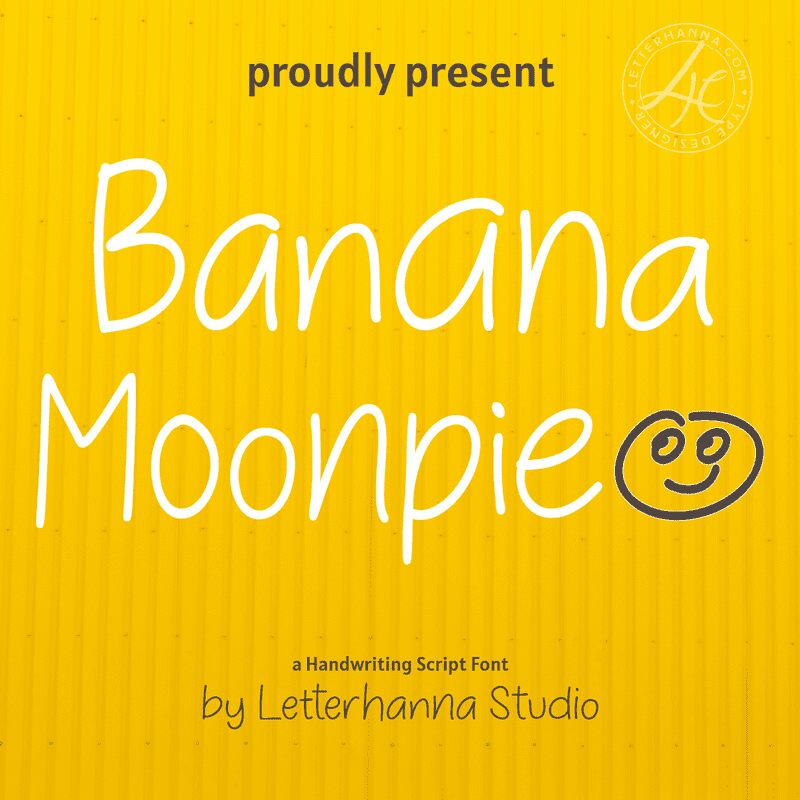
Banana Moonpie font designed by Letterhanna Type Foundry is a free handwritten font bringing a casual laid-back spirit to each and every project it graces. Being extremely approachable, this friendly font can compete with similar fonts, many of which can be far more expensive to obtain. Thanks to its authentic casual mood, Banana Moonpie is a great choice for modern applications where personal touch, spontaneity, and expression need to be put on the line.
There are endless uses to this beautifully executed playful typeface, ranging from logos and headlines for food brands, restaurants, fashion brands, blogs, and magazine headers, to milkshake or lemonade labels. Get creative with Banana Moonpie covered in hand-drawn uppercase and lowercase characters.
"Banana Moonpie" is a fresh and whimsical addition to the world of fonts. This unique sans serif handwritten font combines the casual charm of handwritten script with the clarity of a sans serif typeface, resulting in a delightful and versatile font that is as fun as its name suggests.